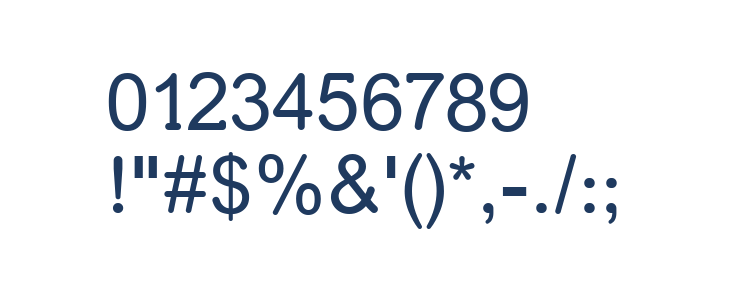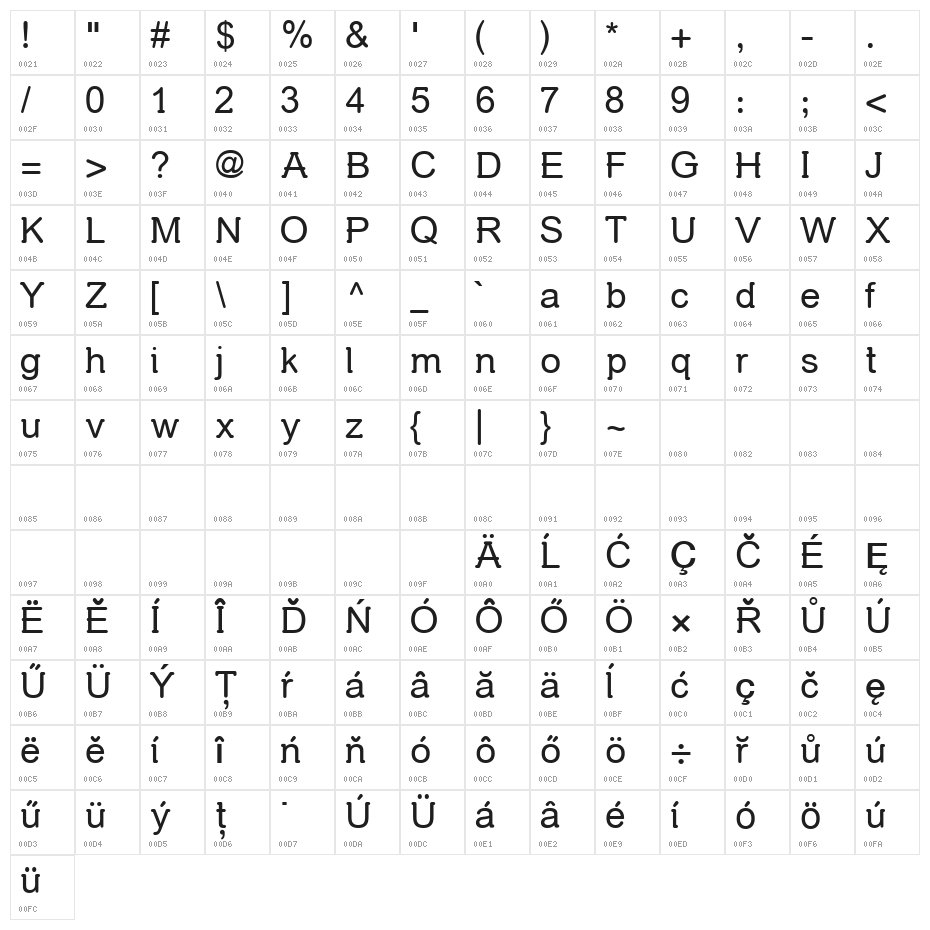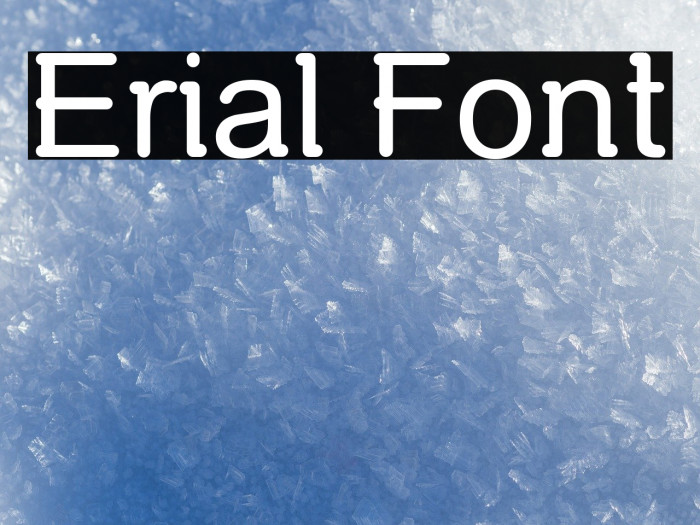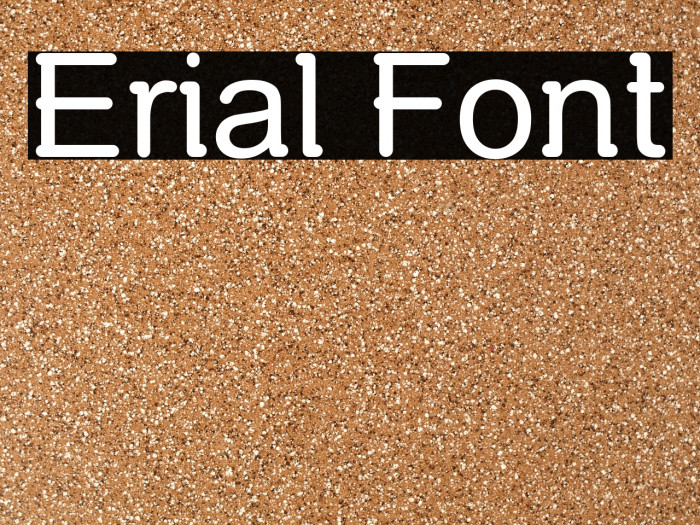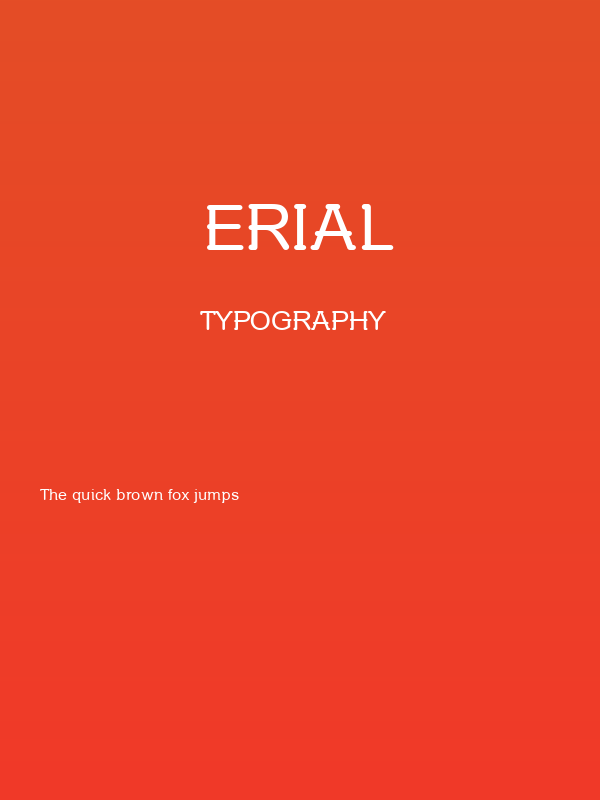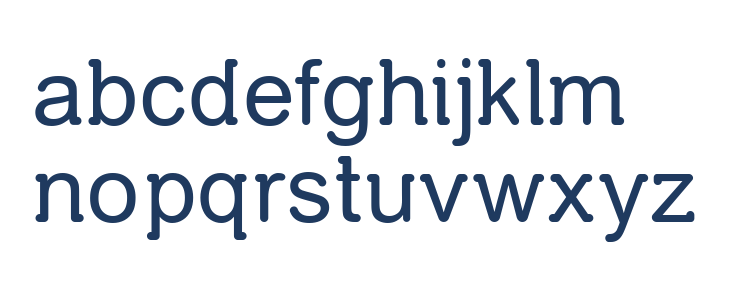
Erial Font
Erial Description
This font exhibits a clean and modern sans-serif style, characterized by its uniform stroke width and rounded terminals. The design is straightforward and highly legible, making it suitable for a wide range of applications. Uppercase letters are bold and prominent, while lowercase letters maintain a consistent height and spacing, ensuring readability. The numerals are clear and distinct, with a balanced proportion that complements the alphabetic characters. Special characters are well-integrated, maintaining the overall aesthetic of the font. Its simplicity and clarity make it versatile for both digital and print media.
| Use Case | Headlines, Body text, Logos |
| Proposed Projects | Ideal for web design, corporate branding, user interfaces, and editorial content. |